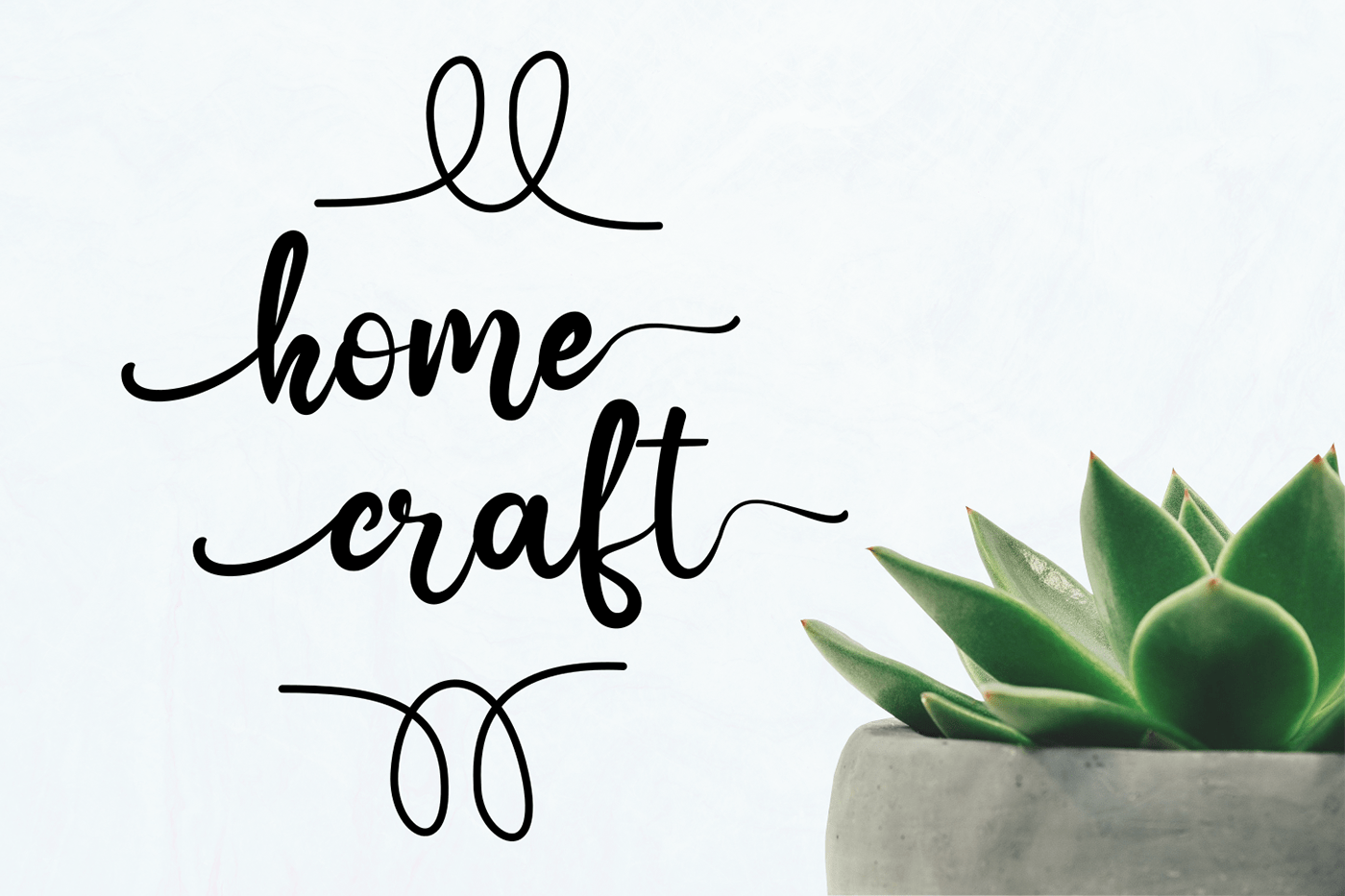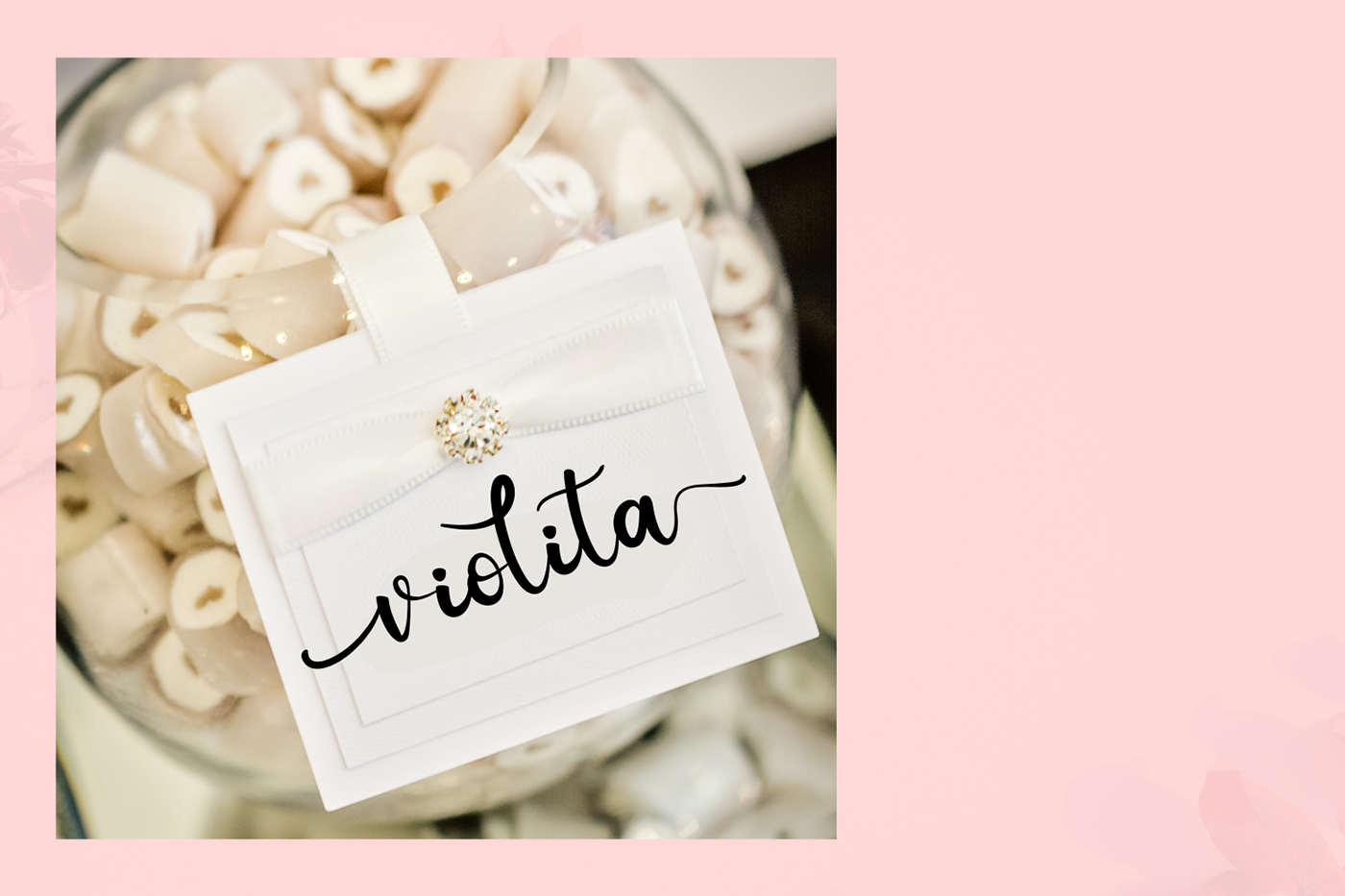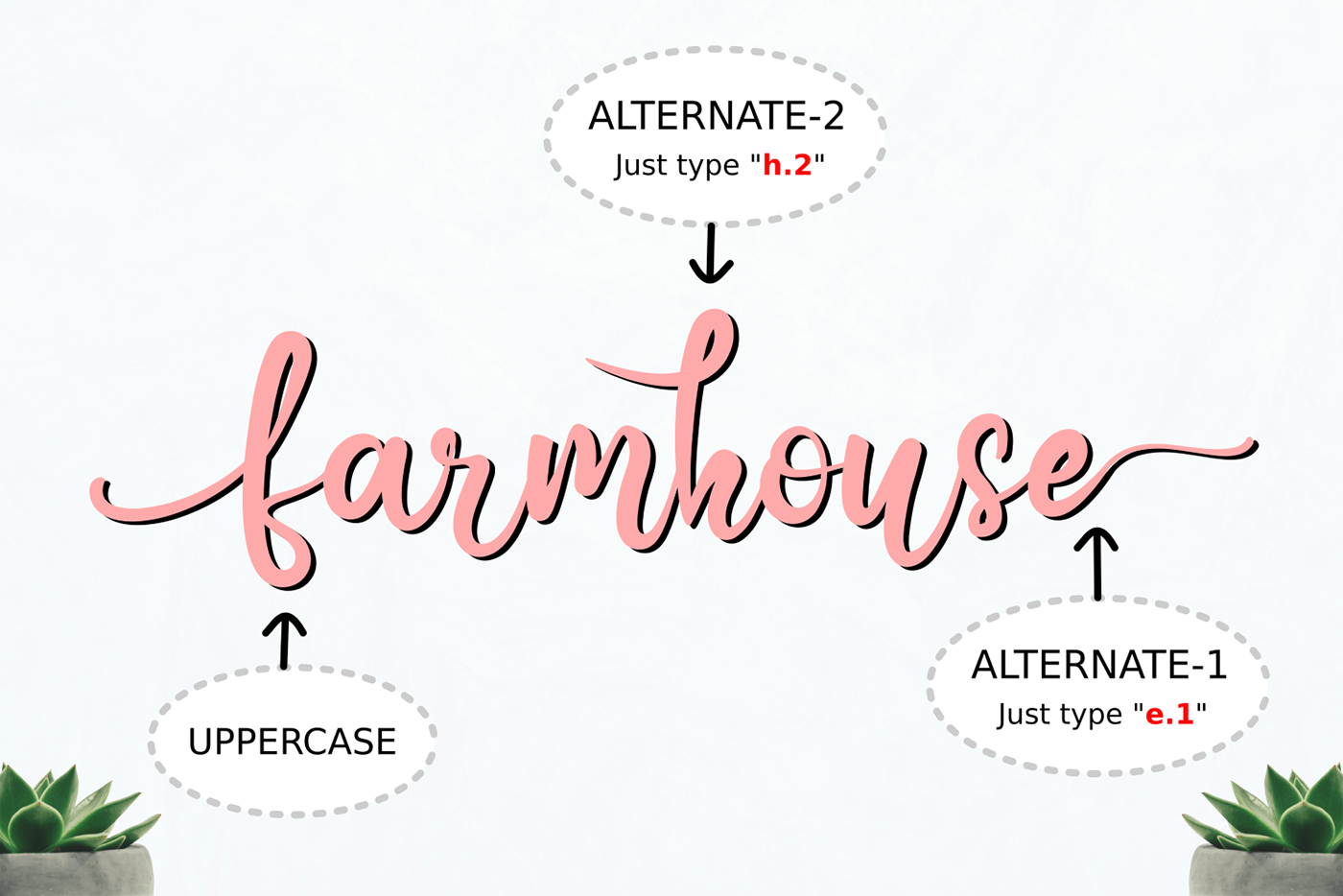
Aisha Script Typeface is a sweet, beautiful, whimsical and cursive script font. The main feature is begining and ending swash. This font will add a luxury touch to any design project.